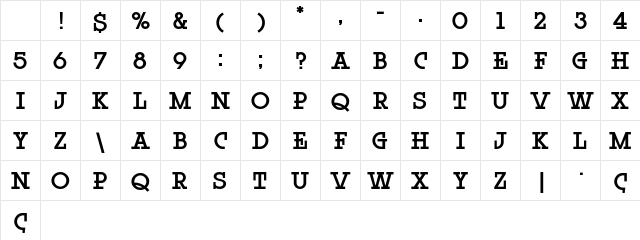
Complete Rock Titling DemiBold Trial glyph index. Displaying only characters natively supported by Rock Titling DemiBold Trial font.
Rock Titling is a composed and adaptable typeface that performs quietly and consistently across a wide range of design contexts. Its bold stroke weight gives it real presence on the page.